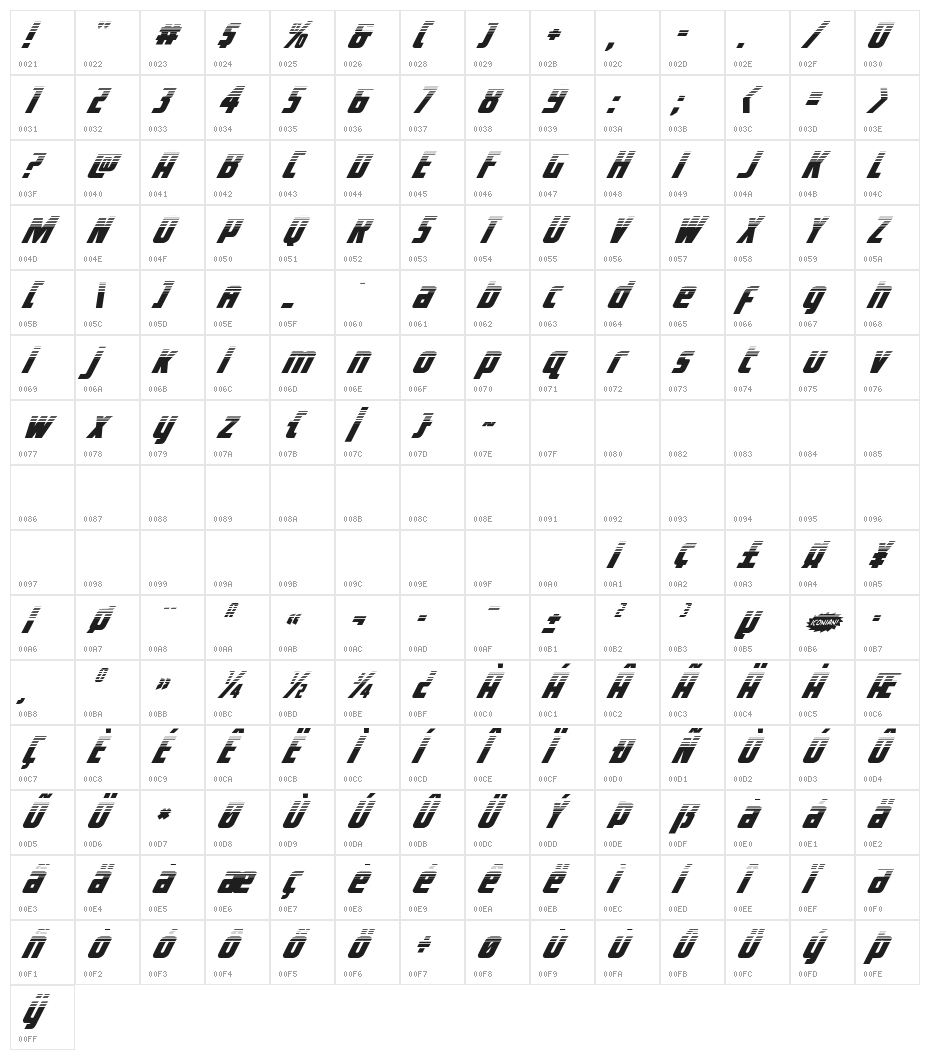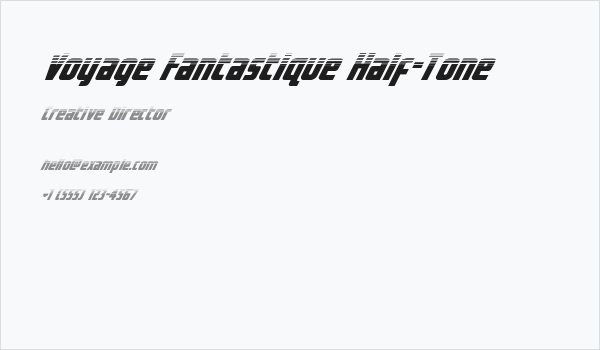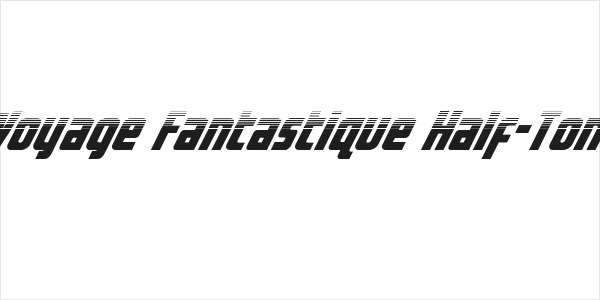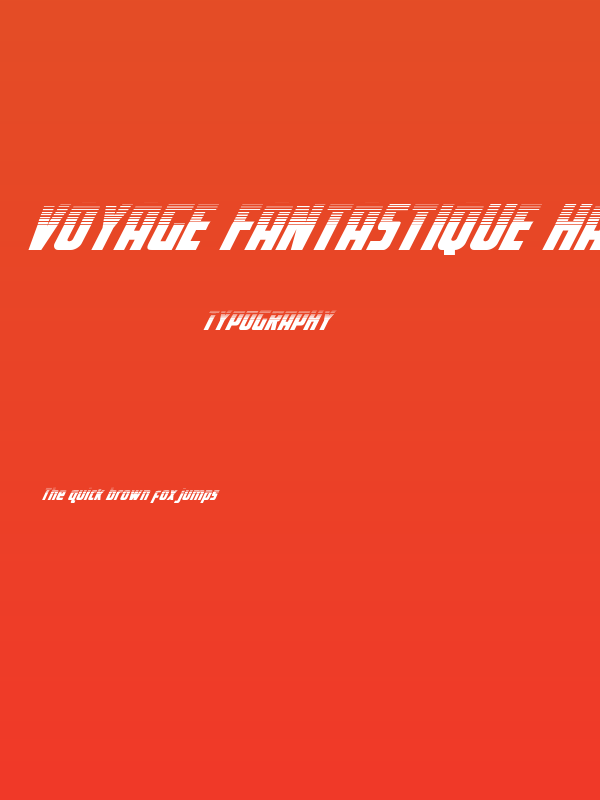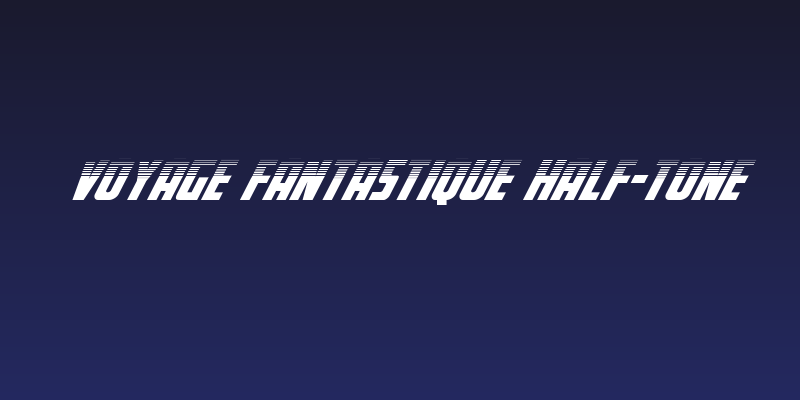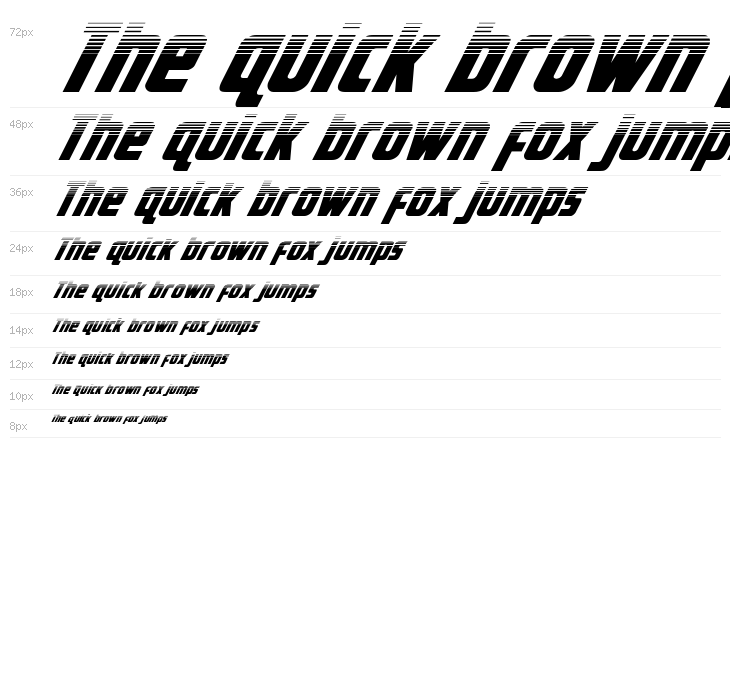
Voyage Fantastique Half-Tone Font
Voyage Fantastique Half-Tone Description
This font features a bold, dynamic style with a futuristic and energetic flair. The characters are designed with a distinct slant, giving them a sense of motion and speed. The upper portion of each character is adorned with horizontal lines, creating a half-tone effect that adds depth and texture. This design choice enhances the font's visual impact, making it ideal for attention-grabbing headlines or titles. The overall appearance is both modern and edgy, suitable for projects that require a strong and memorable typographic presence.
| Proposed Projects | Ideal for sci-fi themed posters, video game graphics, sports branding, and dynamic advertising campaigns. |